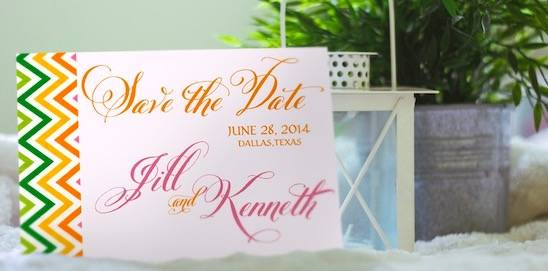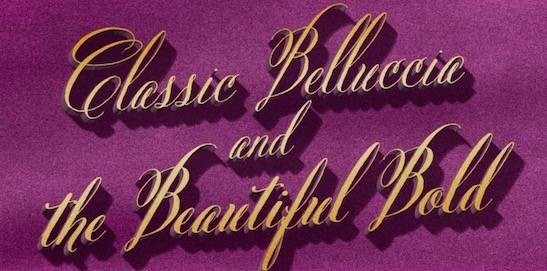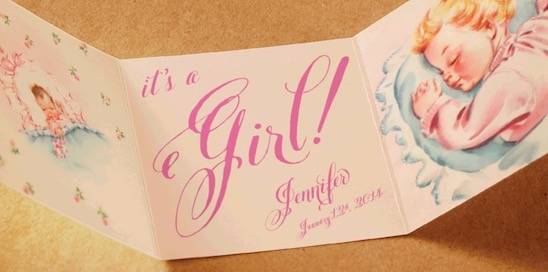
Belluccia Font is a refined handwritten typeface which was created by Brian J and Debi Sementelli. Belluccia font supports many languages along with Opentype features. So, designers can use this script font for many purposes such as blog theme design, advertisement, textured logo, and more. Besides, composing invitations and wedding cards are also relished as a great idea.
Belluccia Handwritten Font